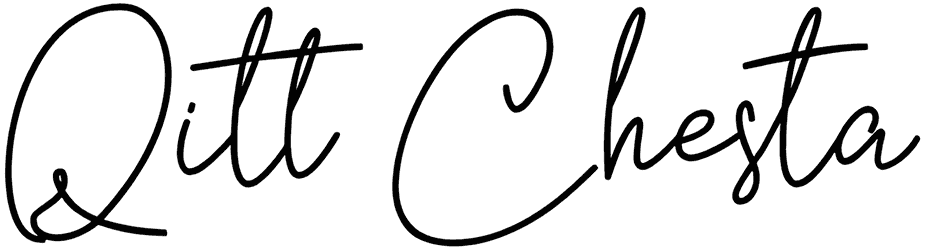
Qitt Chesta Font
A brand new asset in the form of a handwritten font named Qitt Chesta appears to do a great job of living up to your expectations.
Because of its soothing, organic tone, Qitt Chesta is ideal for use in the production of eye-catching designs that can be used on things like posters, invitations, and social media postings. It is available for download from RB’s vast font library, and you can immediately begin incorporating it into your projects.